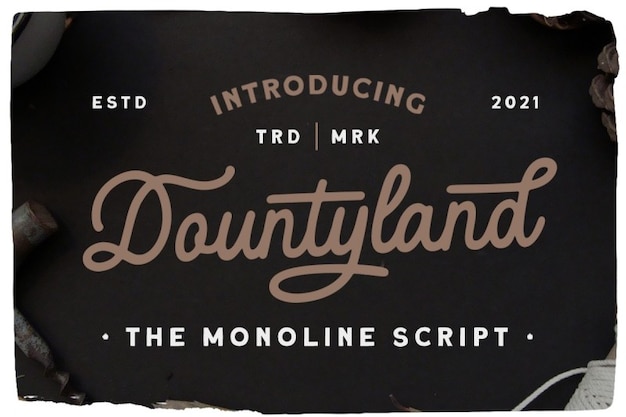
Dountyland Font
Fan of those vintage-handwritten logos? Then Dountyland is your font! It is a bold monoline script with a touch of that vintage calligraphy feeling. It'll look amazing in your merchandise as well as album covers, commercial and, of course, logos! Download and install it in the blink of an eye.